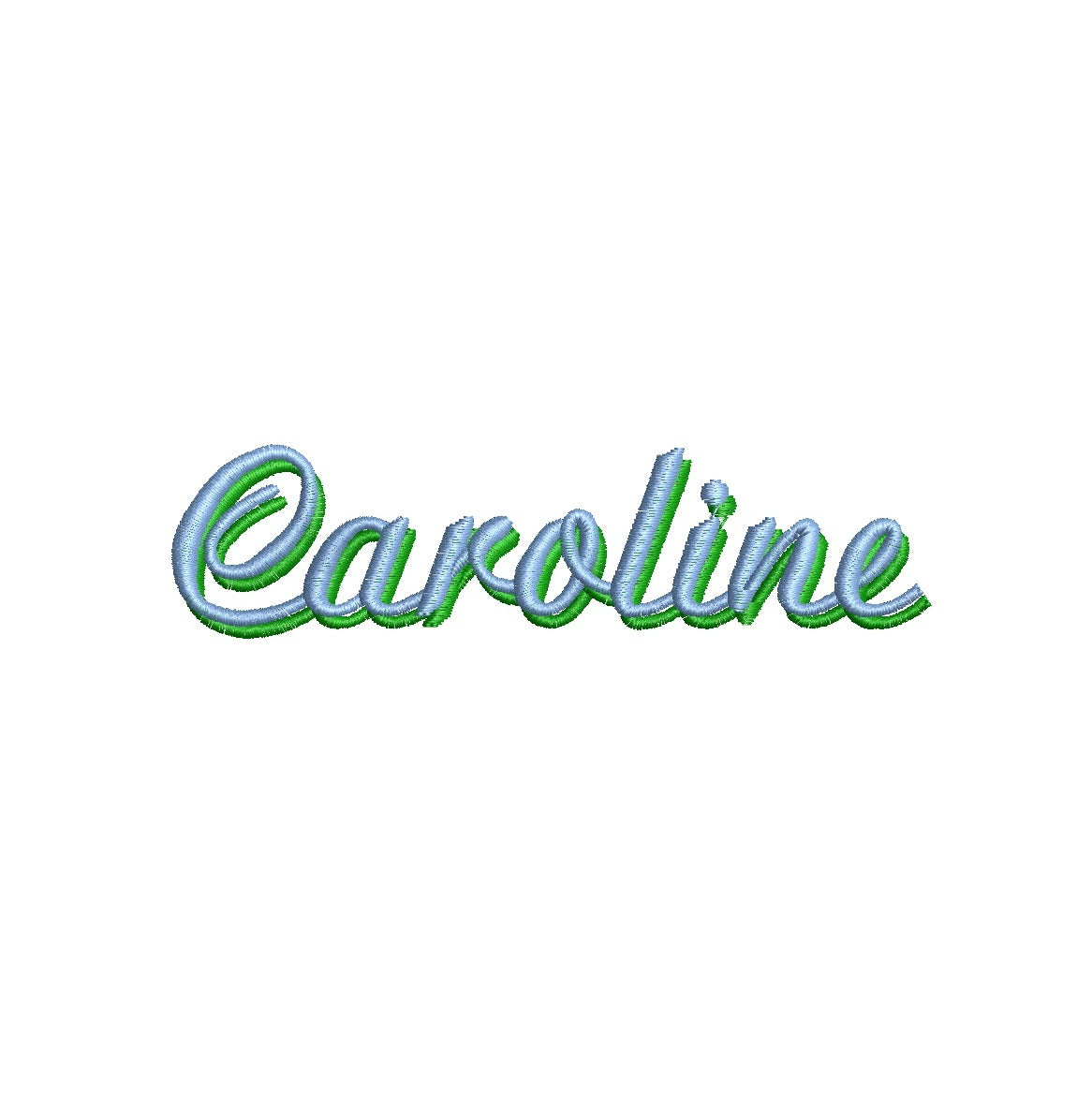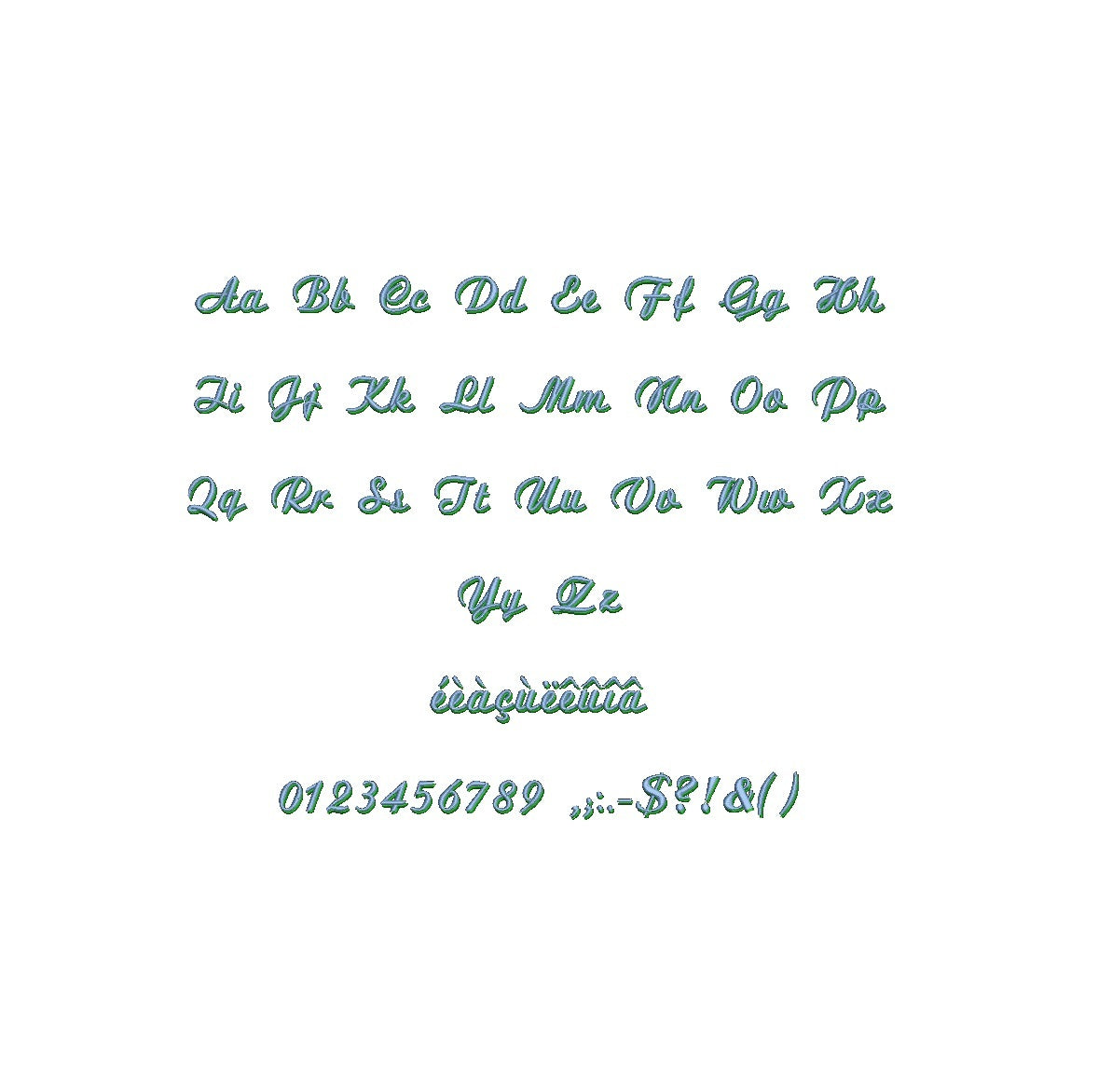
Caroline Shadow ESA font
Elevate your designs with the captivating Caroline Shadow ESA font. Fully compatible with Wilcom Studio e4.5.6 and Hatch 3 versions and up, this font adds an air of sophistication and artistic charm to your projects. The delicate shadows and graceful lines of this font create a mesmerizing visual impact that sets your designs apart. Streamline your creative process and achieve flawless results by utilizing this font with industry-leading software. Upgrade your projects with the compatibility of Caroline Shadow ESA font and craft visuals that leave a lasting impression. Embrace elegance and creativity for your design journey today!